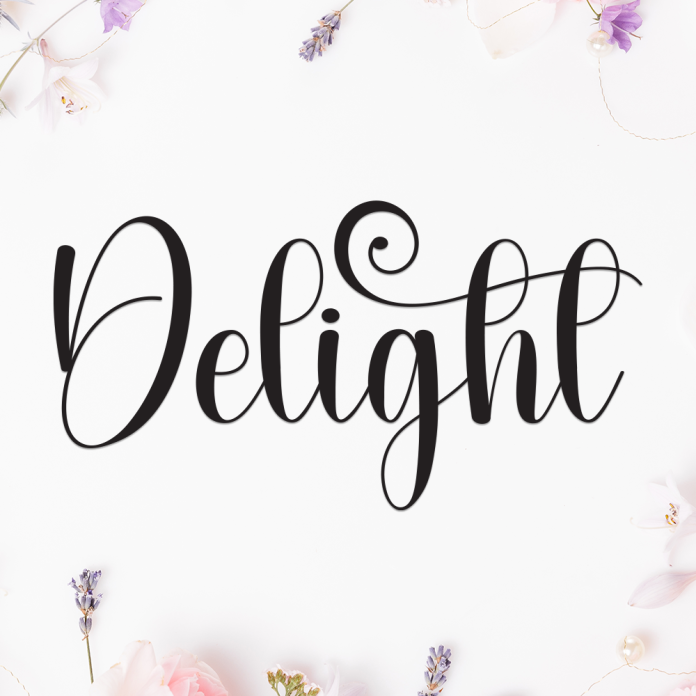
Delight is a graceful handwriting font that captures the essence of personal charm and effortless elegance. Its smooth strokes and delicate curves make it ideal for projects that need a touch of handwritten beauty.
Perfect for wedding invitations, thank-you cards, branding, social media quotes, and feminine designs, Delight adds warmth and authenticity to your message.
Natural and flowing handwriting style
Soft and stylish letterforms
Great for romantic, elegant, or personal projects
Add a personal, heartfelt touch with Delight, the handwriting font that speaks with grace.